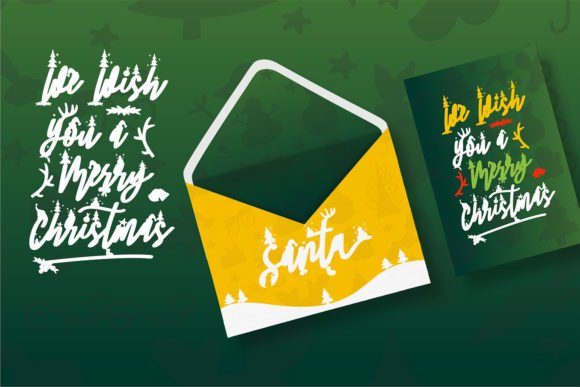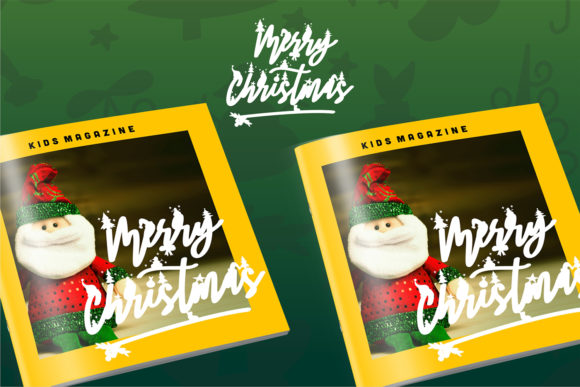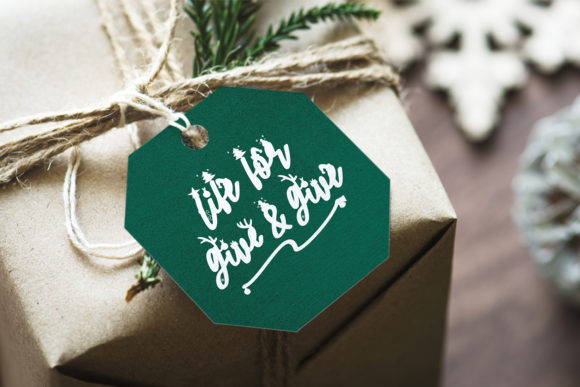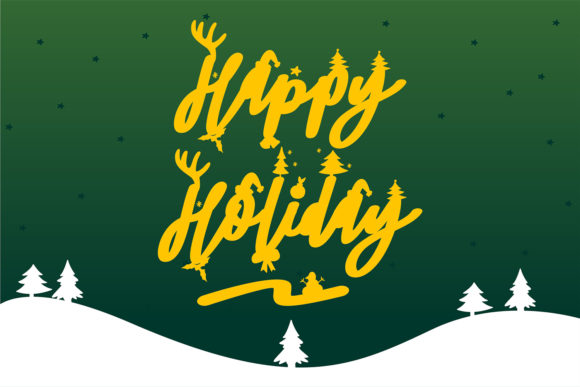
Santa Font
About Santa Font
Santa is a charming and playful handwritten font that captures the festive spirit of Christmas with its personalized Christmas tree glyphs. Its natural and unique style makes it a perfect choice for a wide range of designs, adding a touch of warmth and joy to any project. Here are some creative ways you can use Santa font to spread holiday cheer:
1. Christmas Cards: Design heartwarming Christmas cards using Santa font, with the personalized Christmas tree glyphs adding a special touch.
2. Festive Invitations: Create delightful invitations for Christmas parties and events with Santa font, setting the mood for a jolly celebration.
3. Gift Tags: Design cute and festive gift tags with Santa font, making your presents stand out under the Christmas tree.
4. Social Media Posts: Share holiday-themed graphics on social media using Santa font to engage your audience with festive content.
5. Seasonal Promotions: Use Santa font for seasonal promotions and marketing materials, attracting customers with its cheery appearance.
6. Christmas Crafts: Incorporate Santa font into Christmas craft projects, such as DIY decorations, to add a personalized and joyful touch.
7. Festive Menus: Create eye-catching and whimsical Christmas menus with Santa font, perfect for holiday-themed gatherings.
8. Seasonal Branding: Add Santa font to your brand’s seasonal branding, giving it a festive twist during the Christmas season.
9. Christmas Quotes: Craft beautiful quotes about the magic of Christmas using Santa font, highlighting the season’s joy and wonder.
10. Children’s Books: Use Santa font in children’s books with Christmas themes, capturing young readers’ imaginations with its playful charm.
11. Holiday Banners: Design eye-catching holiday banners and signage with Santa font to spread cheer and attract attention.
12. Seasonal Merchandise: Apply Santa font to Christmas-themed merchandise, such as mugs, shirts, and ornaments, to create joyful and personalized products.
The personalized Christmas tree glyphs in Santa font make it a standout choice for any Christmas-related design project. Whether you’re creating digital graphics, printed materials, or crafting decorations, Santa font will add a touch of sweetness and holiday magic to your creations. Embrace the festive spirit and let Santa font bring a warm and friendly ambiance to your Christmas designs.